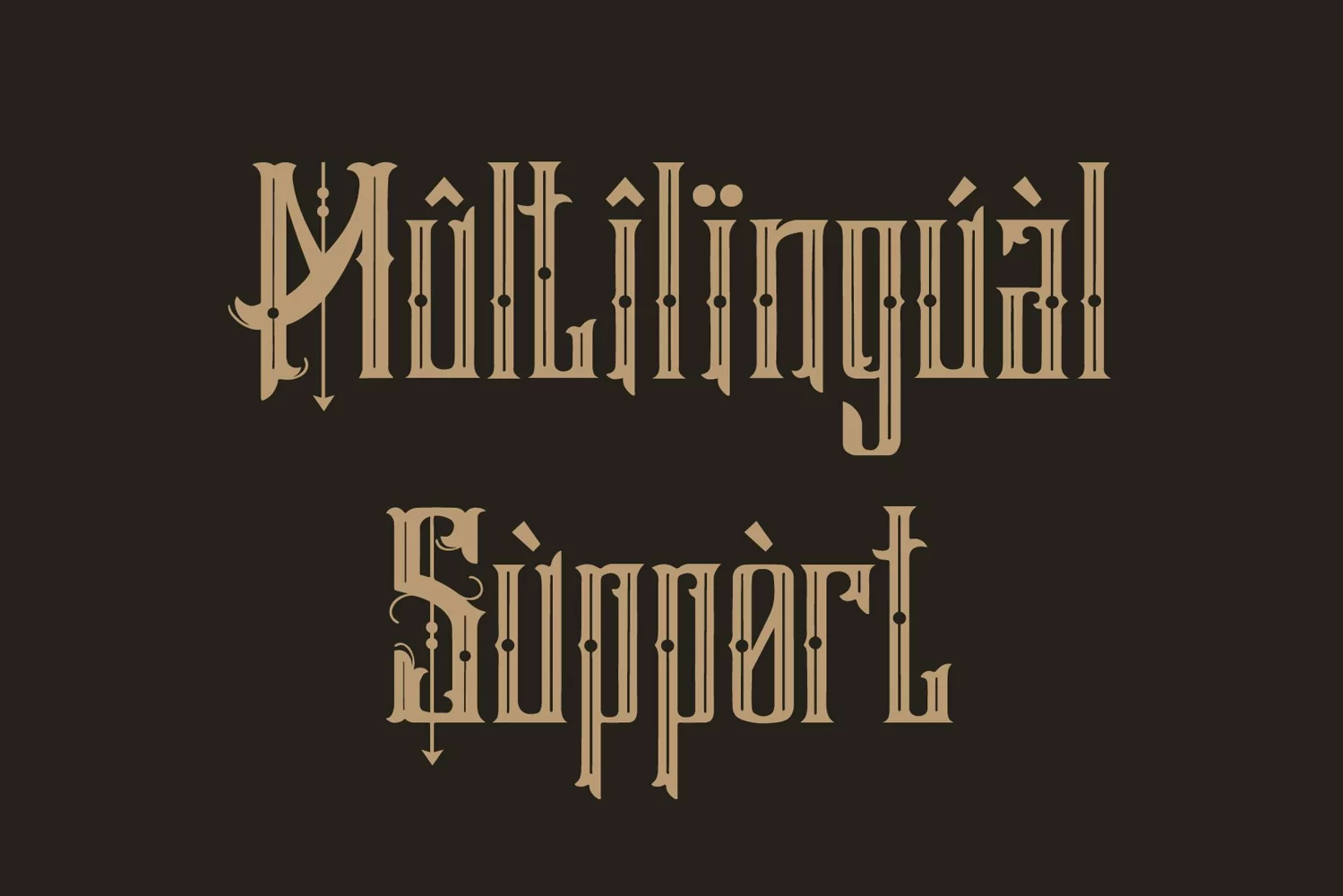
The Majestic Font
This pair was inspired by the Vintage label design that i saw on some coffee shop, It was crafted by hand specially to add natural handmade feeling in its brand identity than i make it clean with pentool.
The Majestic font has 178 character set included
The Majestic Font is very good looking in logo, labels, t-shirt prints, product packaging, invitations, advertising and others.
This fonts works with folowing languages: English, Danish, Dutch, Estonian, Faroese, Filipino, Finnish, French, German, Hungarian, Icelandic, Irish, Italian, Norwegian, Polish, Portuguese, Spanish, Swedish.